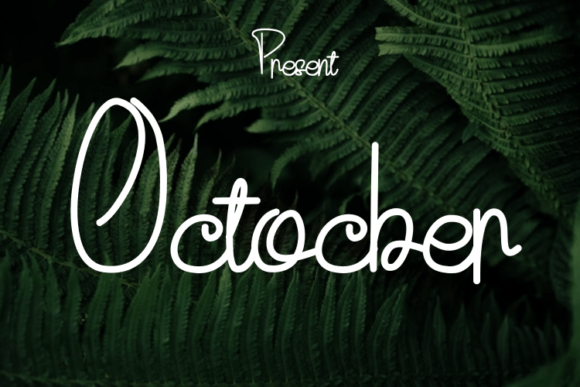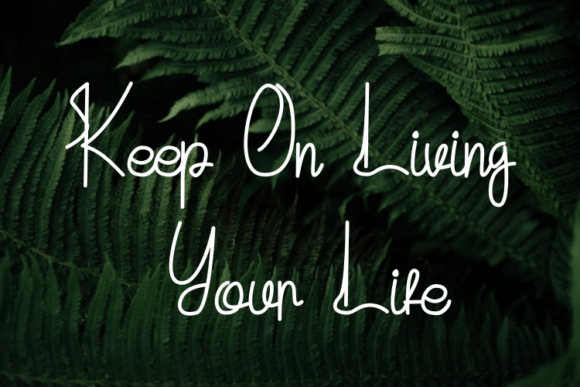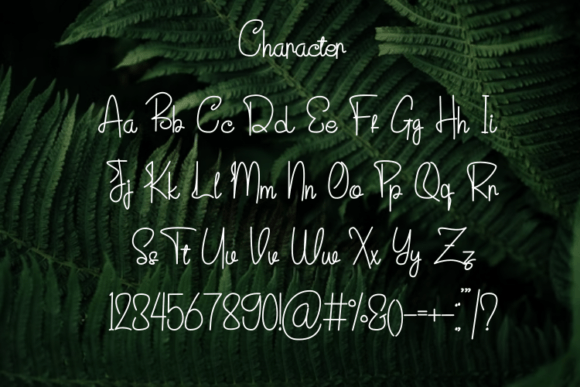
About Octocber Font
“Octocber” is a script typeface characterized by its simple yet modern style, making it a versatile choice for a wide range of design applications. With its clean and contemporary look, this typeface is well-suited for various design projects, adding an elegant and luxurious touch to your creations.
One of the remarkable features of “Octocber” is its adaptability. It is a font that effortlessly transitions from elegant and luxurious logos to sophisticated book or movie design titles. Its versatility extends to fashion brands, magazines, clothing, fonts, quotes, and more, ensuring that it can be used in various design contexts.
Imagine using “Octocber” for a high-end fashion brand logo, and how it communicates an air of elegance and luxury to your brand identity. Picture incorporating this typeface into a book cover design, instantly setting the tone for a modern and captivating read. Whether you’re working on a magazine layout, creating stylish clothing labels, or designing impactful quotes, “Octocber” adds a level of sophistication and contemporary flair to your projects.
In conclusion, “Octocber” is a versatile script typeface that brings a sense of modern elegance to your design endeavors. Its simplicity and modernity make it an excellent choice for a wide range of applications, ensuring that your creations are both stylish and captivating. Let “Octocber” be your go-to font for infusing elegance and luxury into your designs, making them truly stand out and leave a lasting impression.